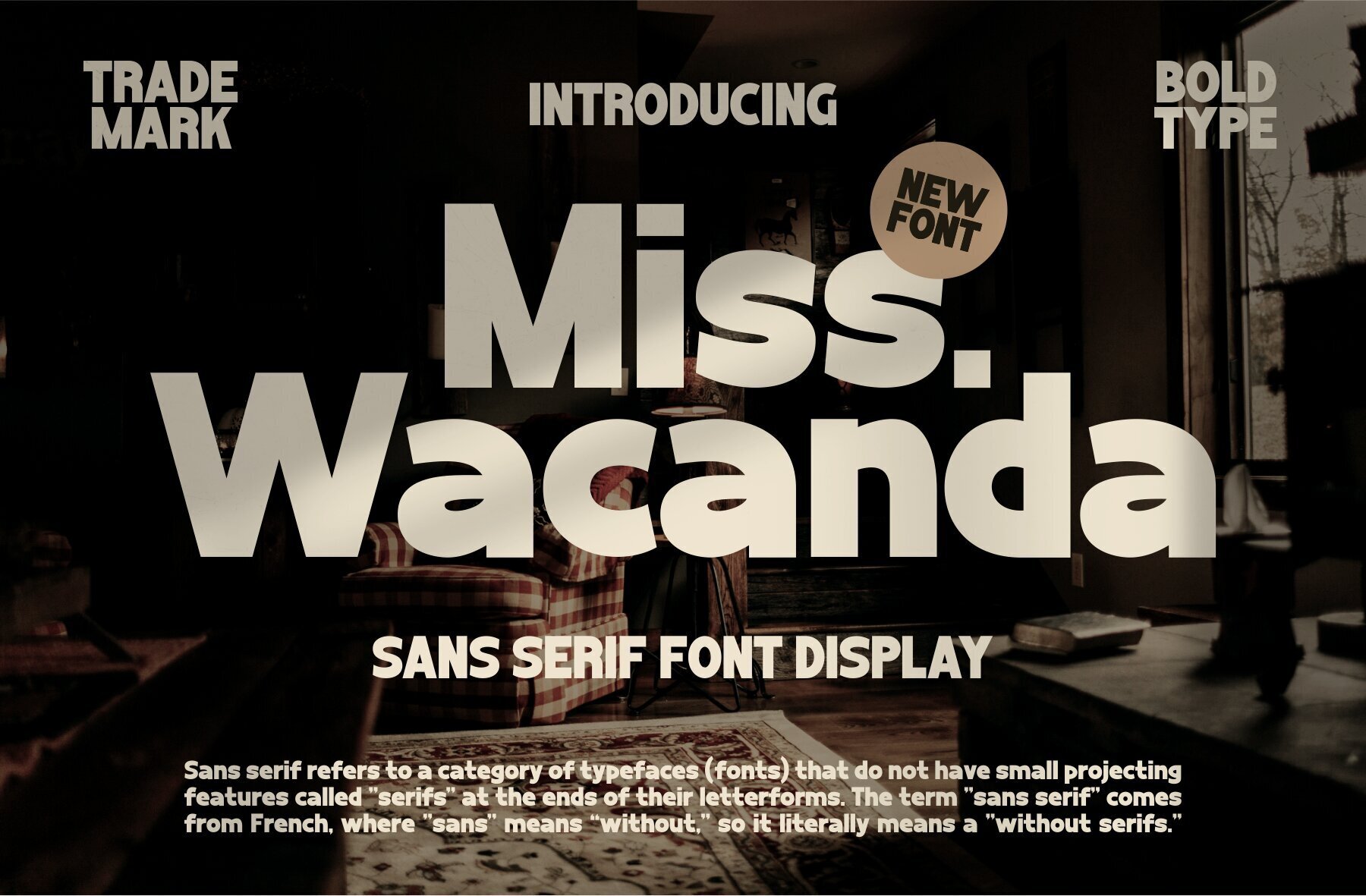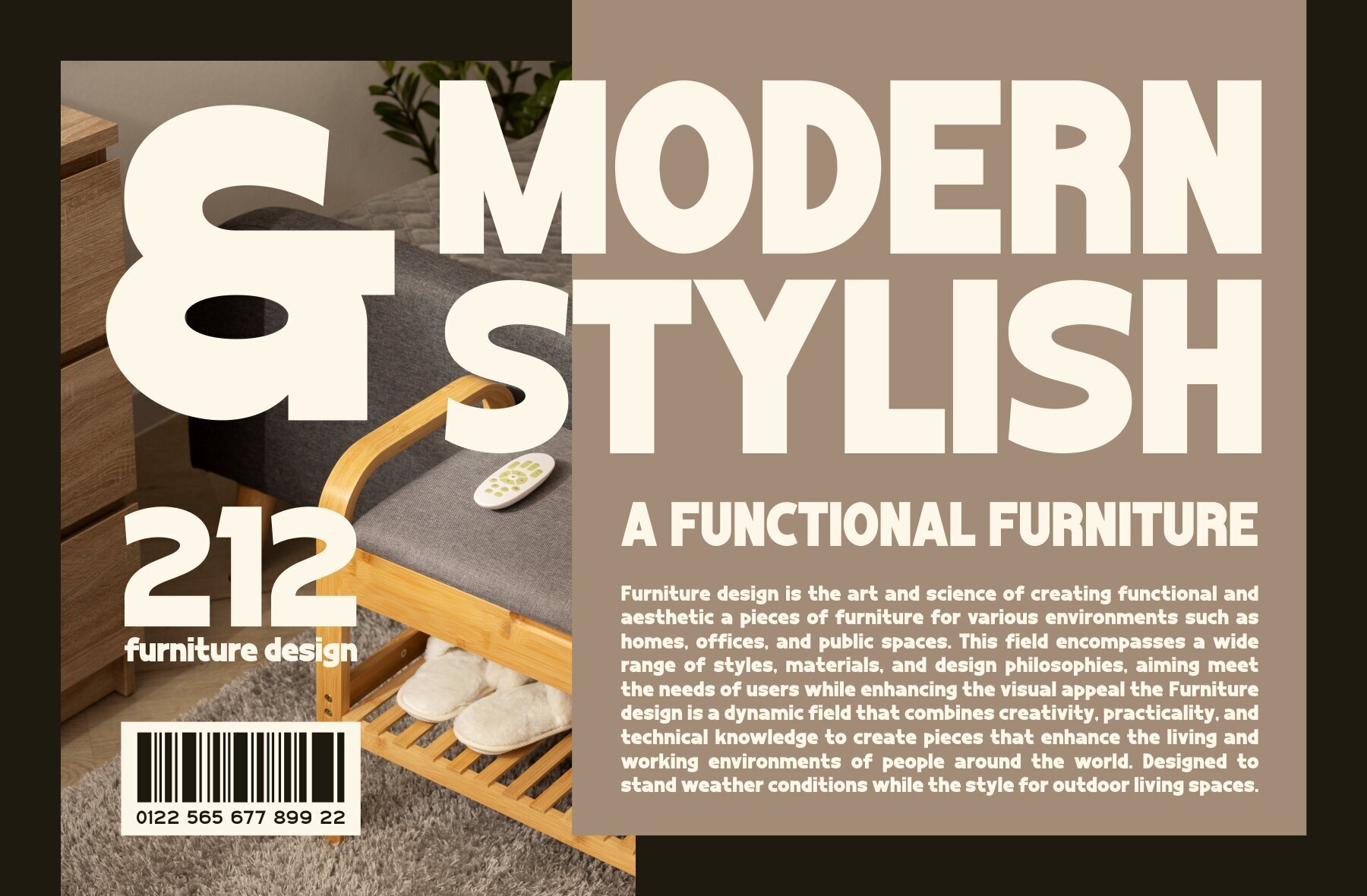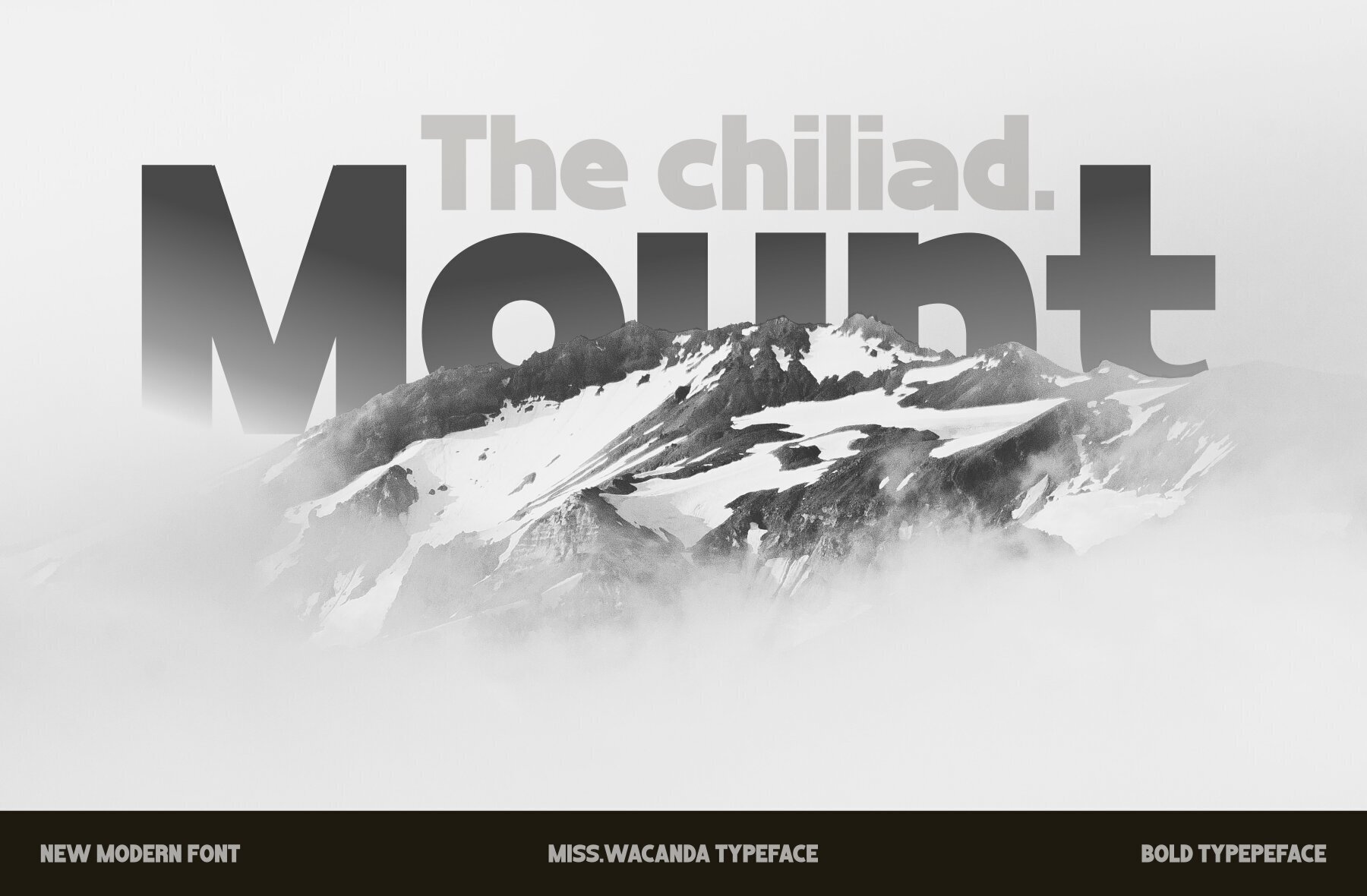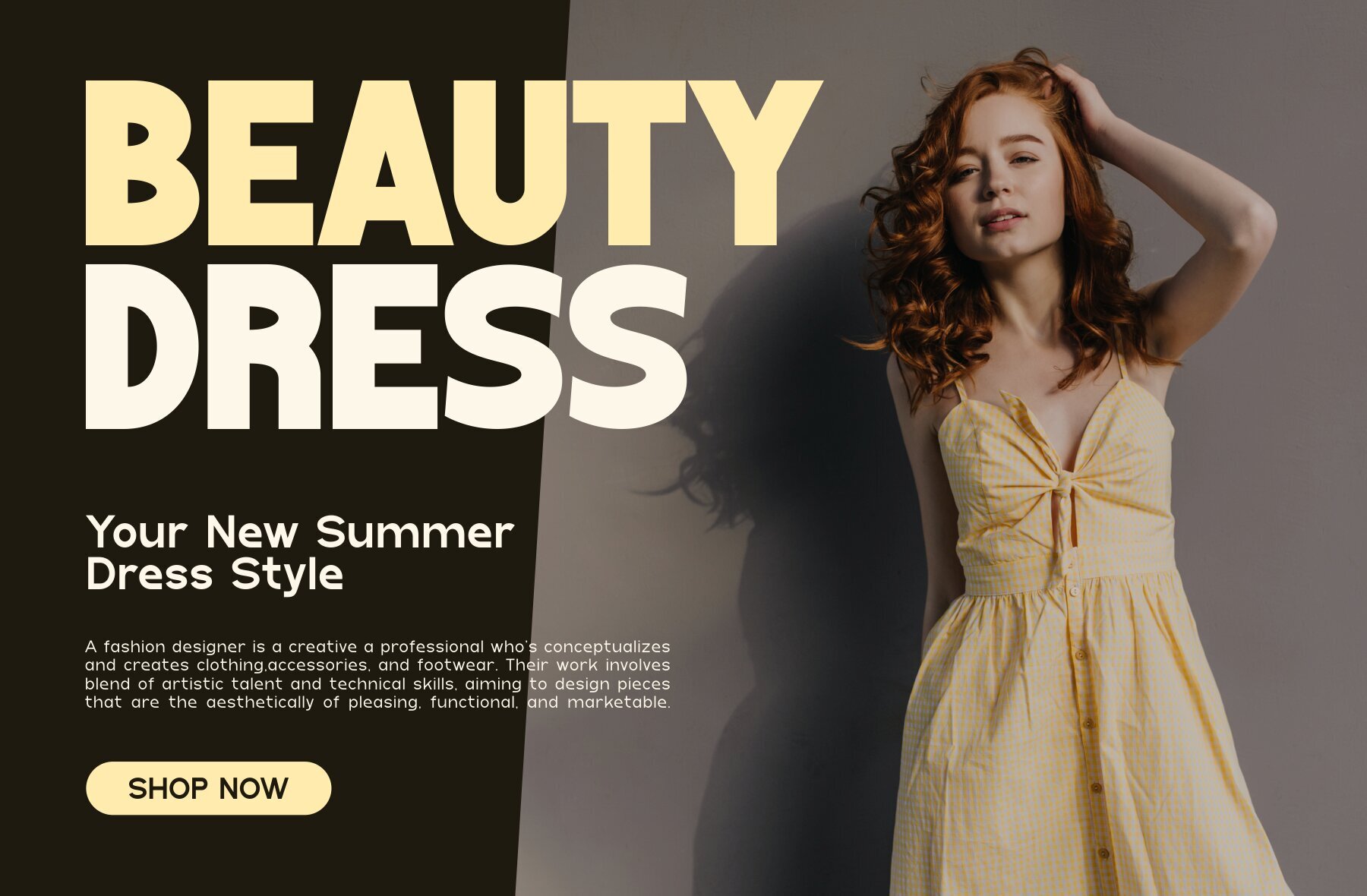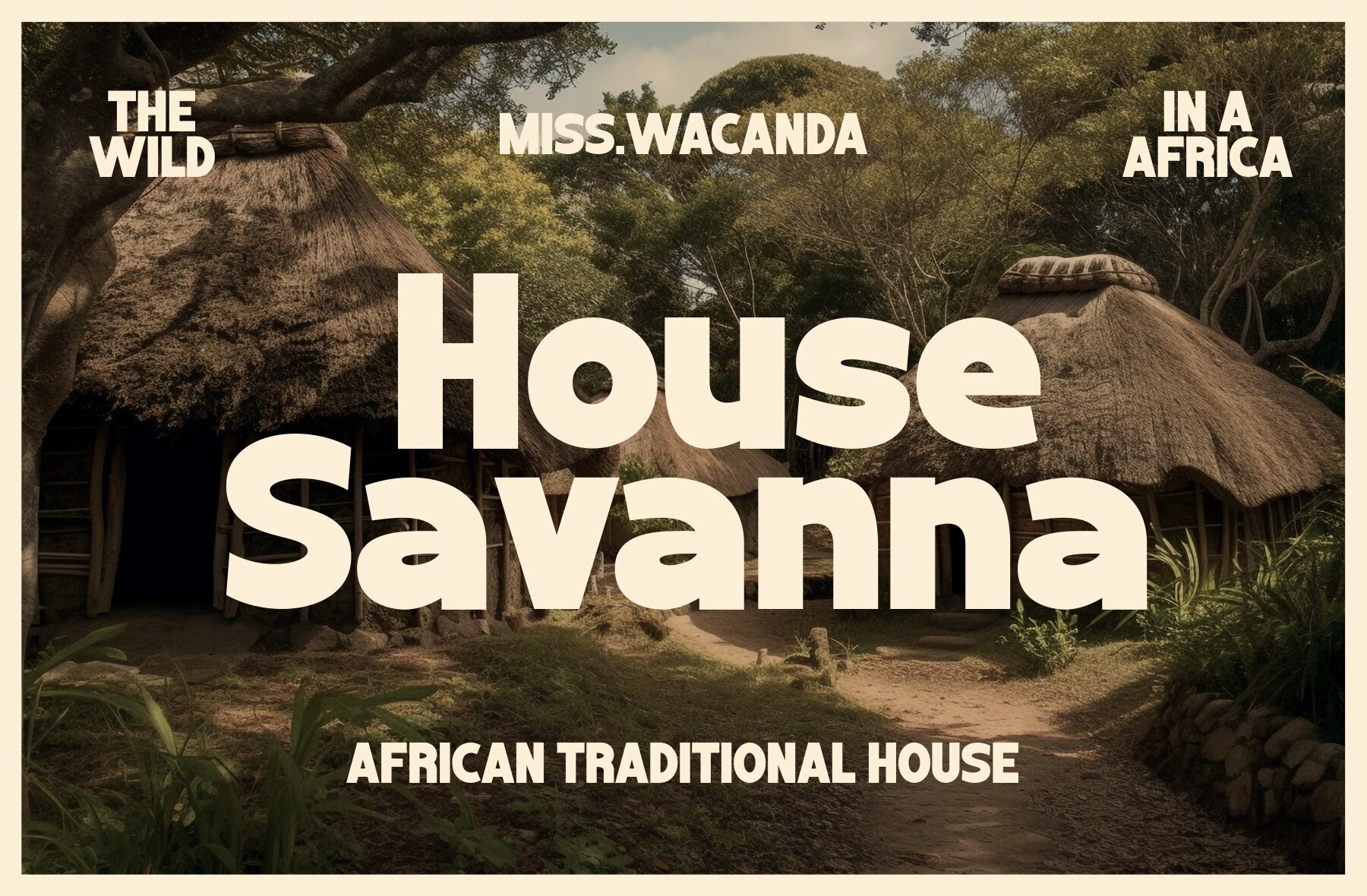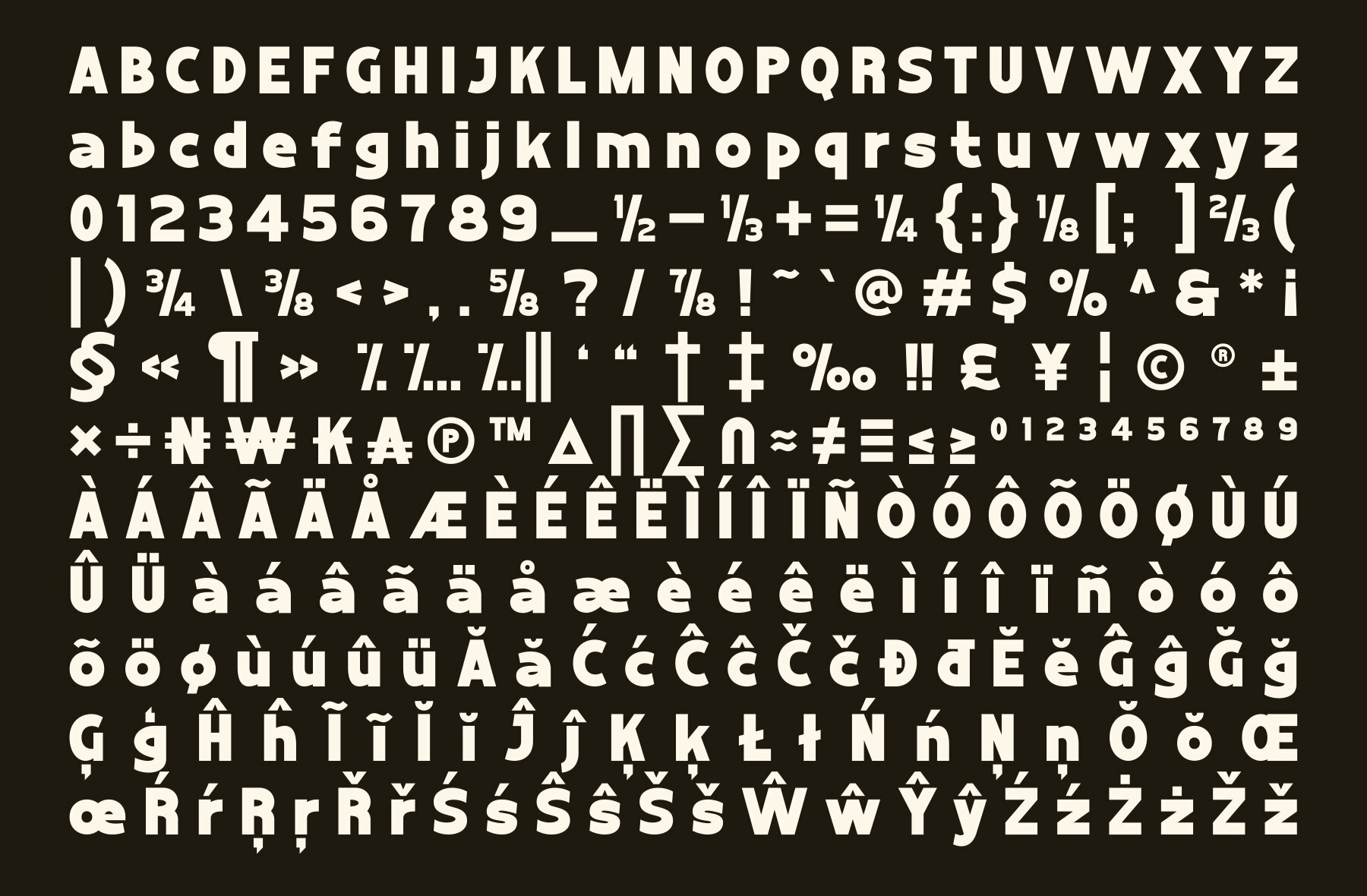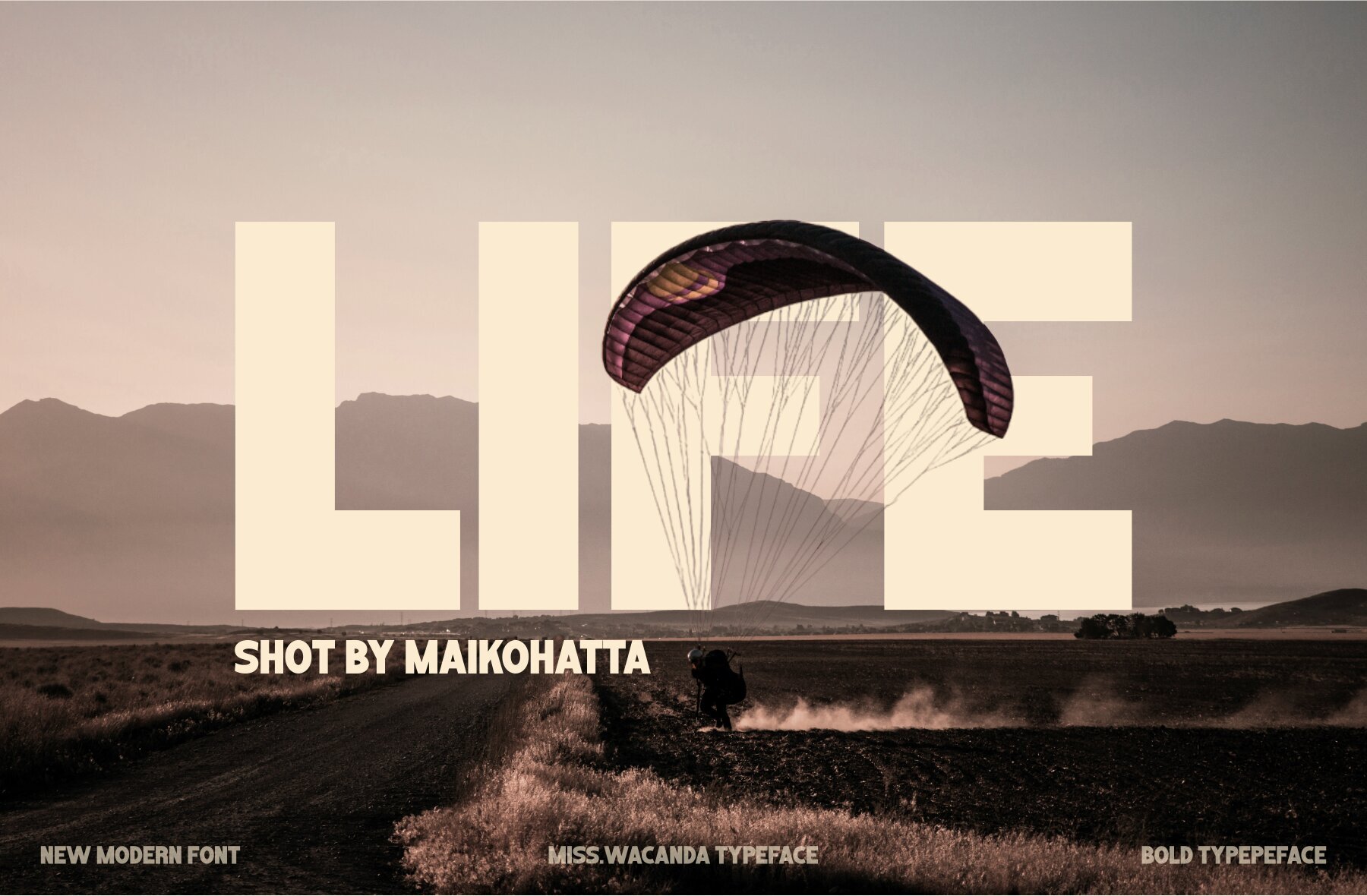
Miss Wacanda Font
Miss Wacanda
Miss Wacanda by Maikohatta is a versatile Sans Serif font tailored for contemporary design needs. Its clean and professional aesthetic makes it an adaptable choice for various design contexts.Miss Wacanda: A Versatile Sans Serif Font for Modern Design